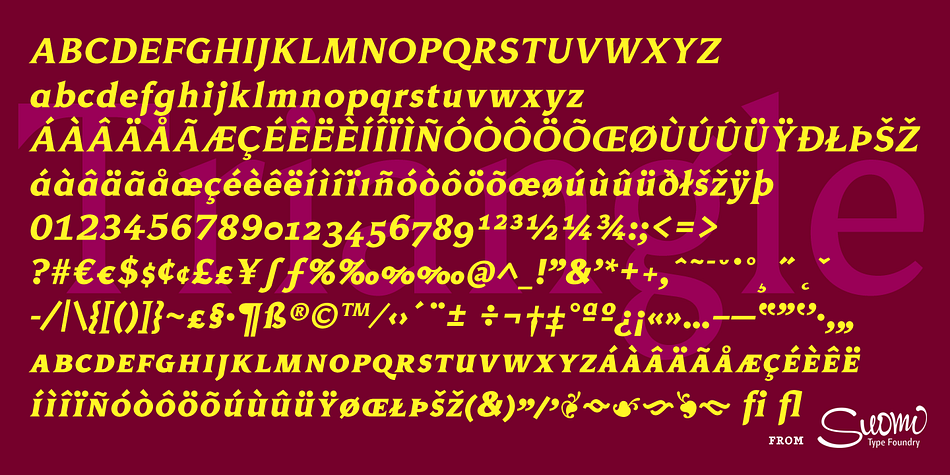
Triangle
Designed by Tomi Haaparanta, Triangle is a serif font family. This typeface has eight styles and was published by Suomi Type Foundry.
A family with retro feel in four weights, Roman and Italic, all with Old Style Numerals and Small Caps, for both headlines and body text use.
Foundry Suomi Type Foundry
Designer Tomi Haaparanta